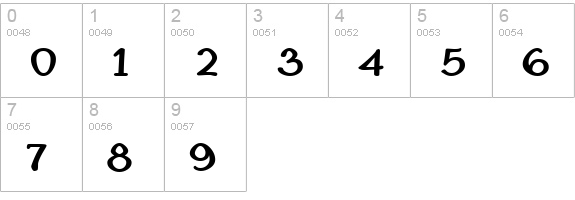
KampIngrianaH Bold Font Details
KampIngrianaH Bold is a strong, high-contrast variant in the KampIngrianaH typeface family \xE2\x80\x94 well suited to headlines, attention-grabbing titles, and strong calls-to-action.
KampIngrianaH Bold font is a captivating and eye-catching typeface that exudes confidence and power. With its bold and strong letterforms, this font commands attention and makes a bold statement in any design project. Featuring thick and well-defined strokes, KampIngrianaH Bold font is perfect for headlines, titles, logos, and any other application where you want to make a lasting impression. Its unique and distinctive design sets it apart from other fonts, giving your designs a touch of originality and sophistication. One of the best things about KampIngrianaH Bold font is that it is freely available to download at FontsMarket.com. This means that you can easily access and use this incredible font without any hassle. Whether you are a professional designer or a hobbyist, this free font is a valuable addition to your font library. The versatility of KampIngrianaH Bold font allows it to be used in a variety of design projects. From posters and flyers to websites and branding materials, this font will elevate your designs and make them stand out. Its bold and impactful presence ensures that your message will be delivered with authority and style. So why wait? Download KampIngrianaH Bold font for free at FontsMarket.com and start incorporating this remarkable typeface into your designs today. Unleash your creativity and make a bold statement with this captivating font that is sure to leave a lasting impression on your audience.